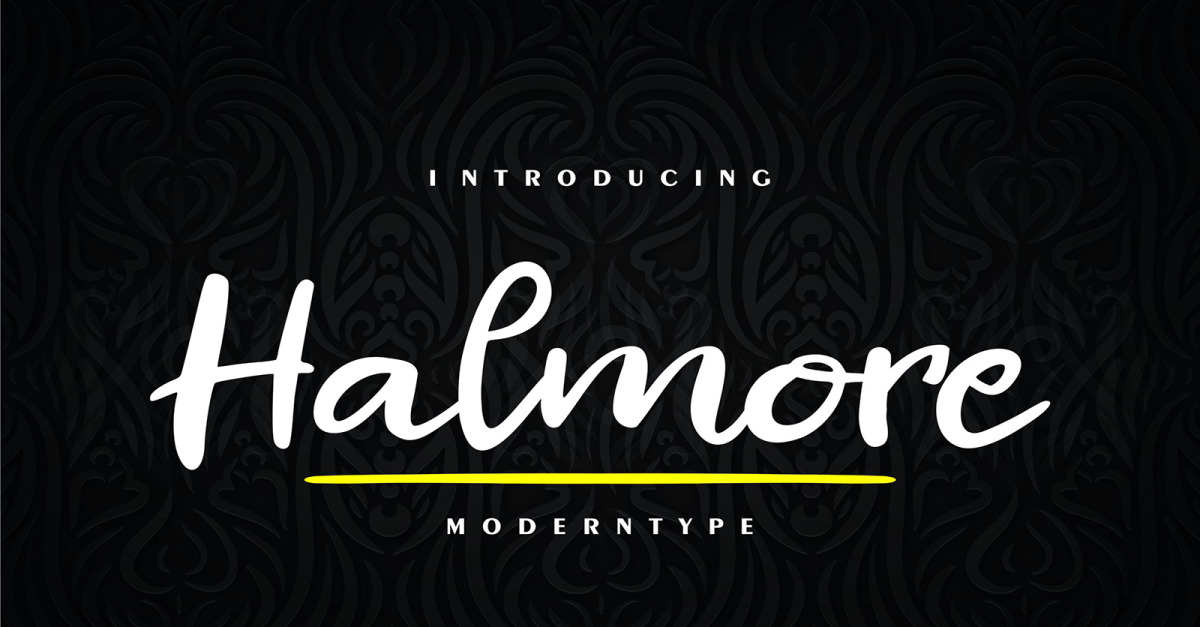
Halmore | Moderntype Font
**Halmore | Moderntype** with a calligraphy style, So beautiful on invitation like greeting cards, branding materials, business cards, quotes, posters, and more!